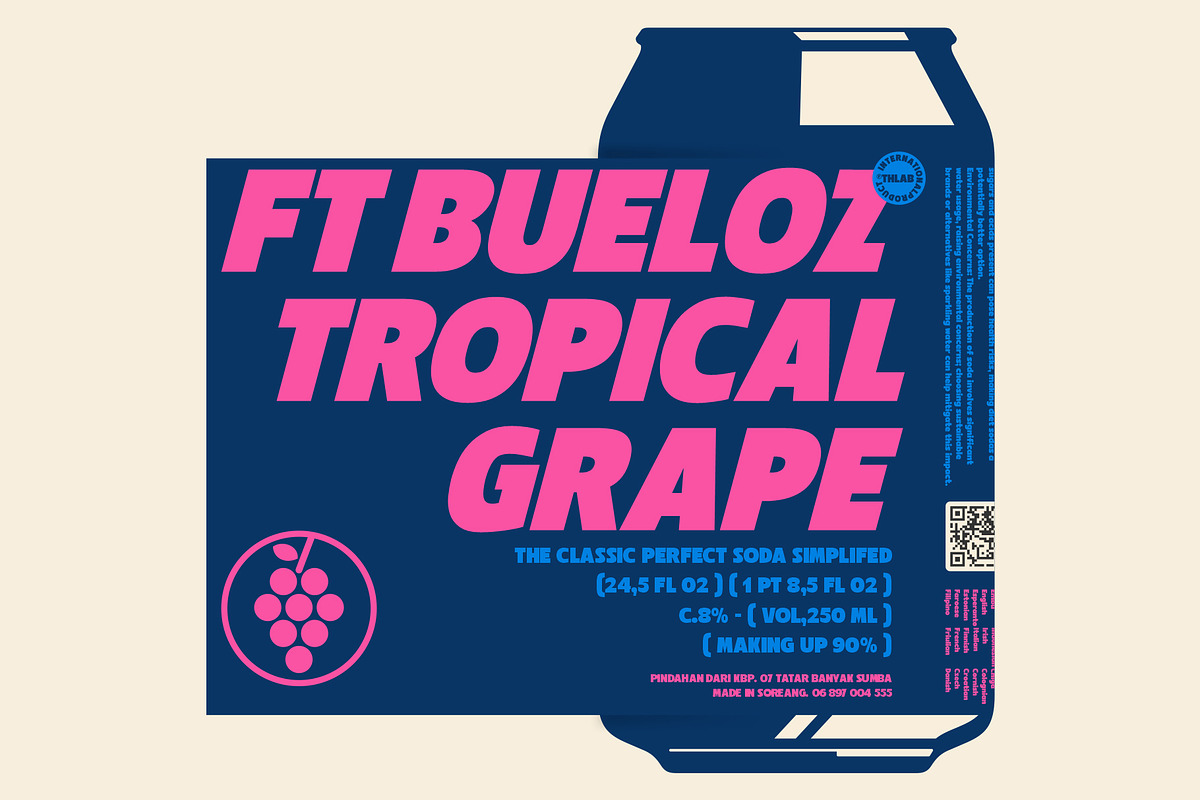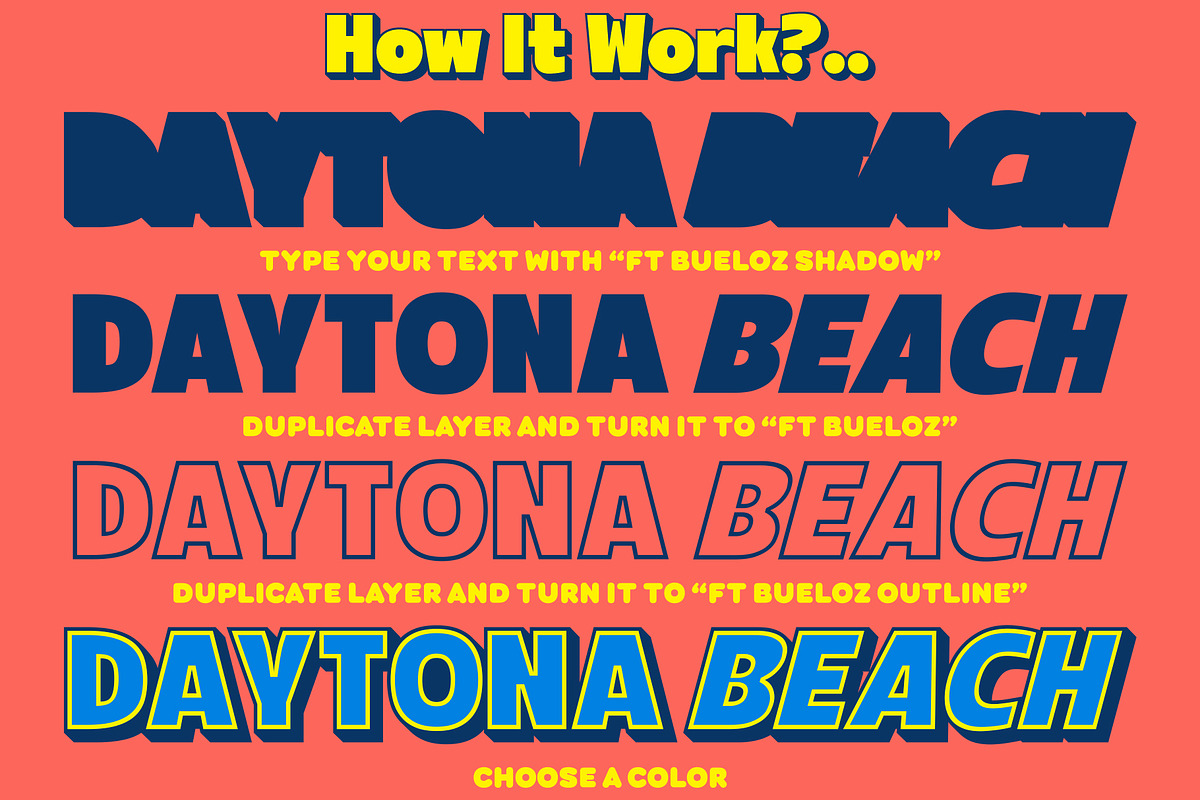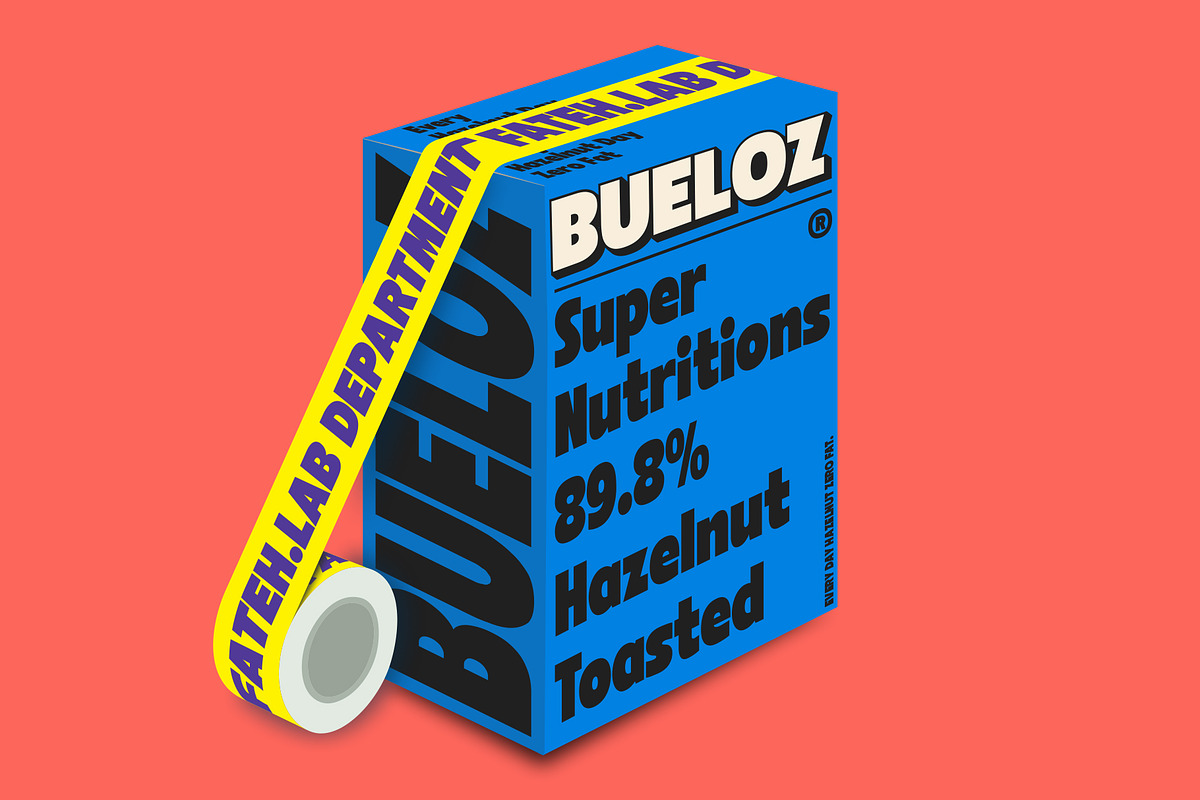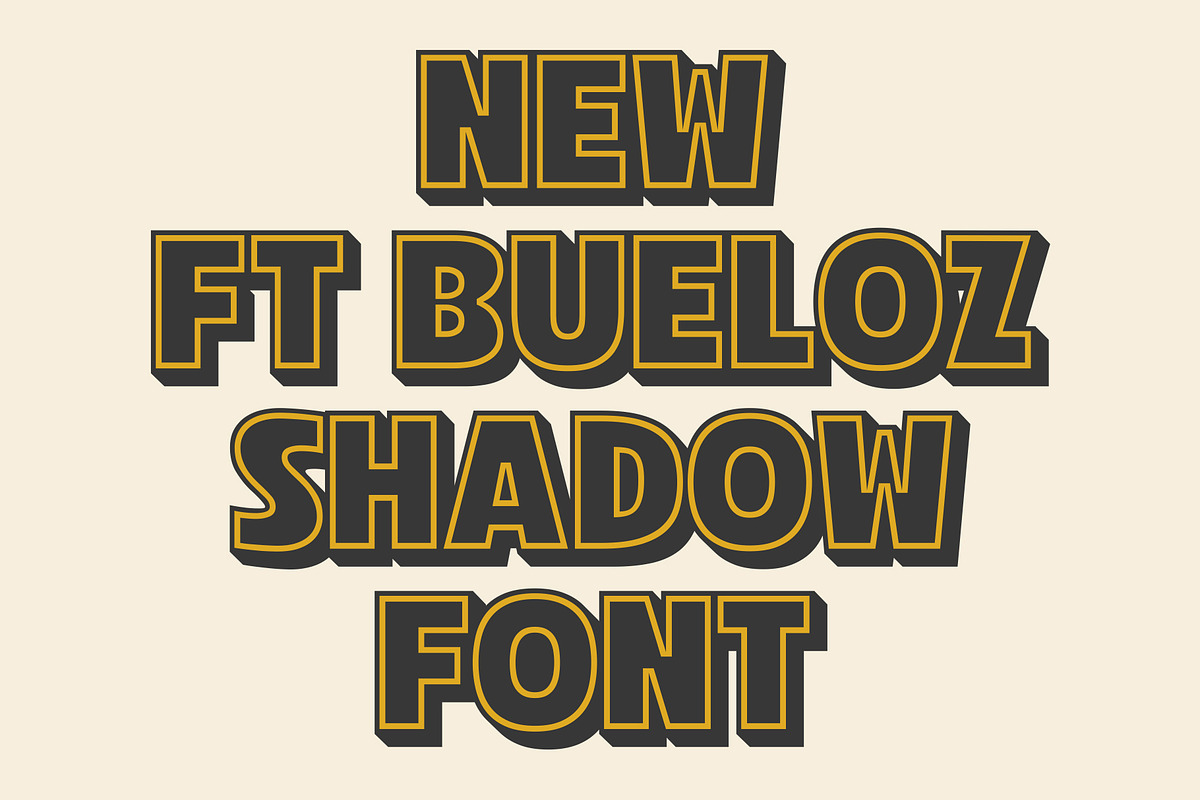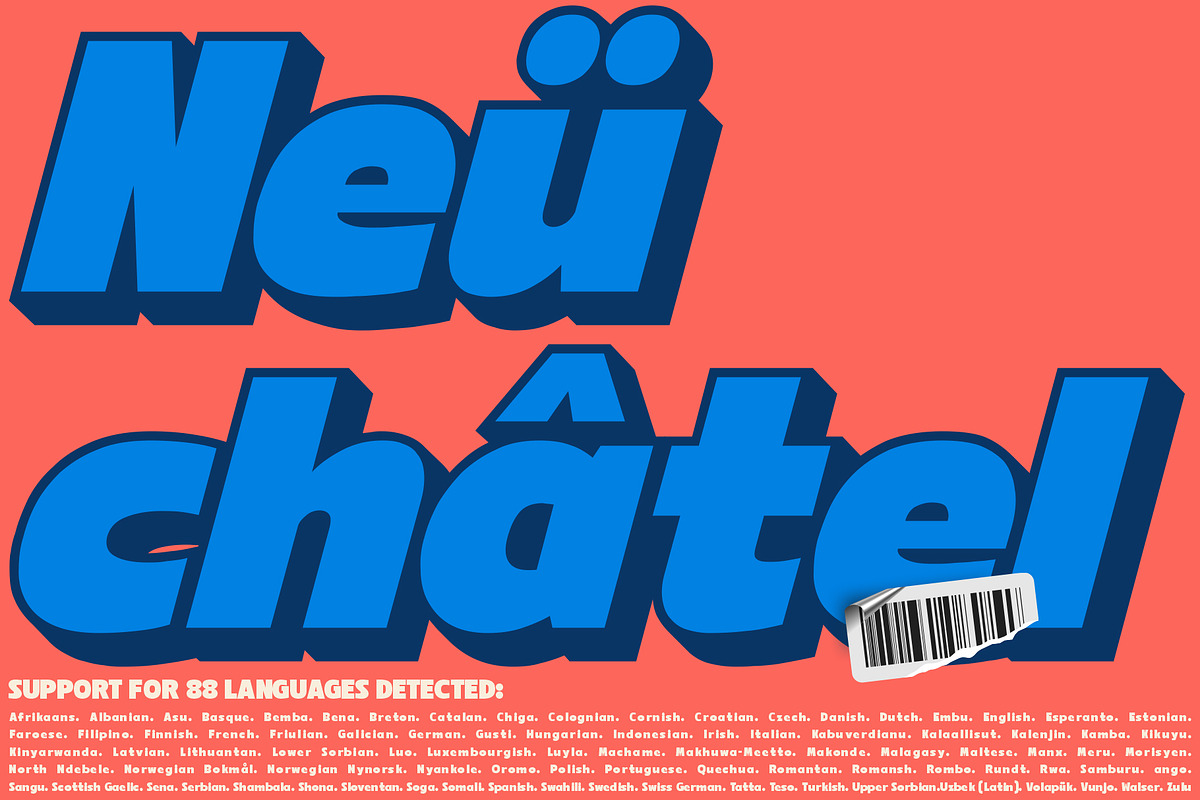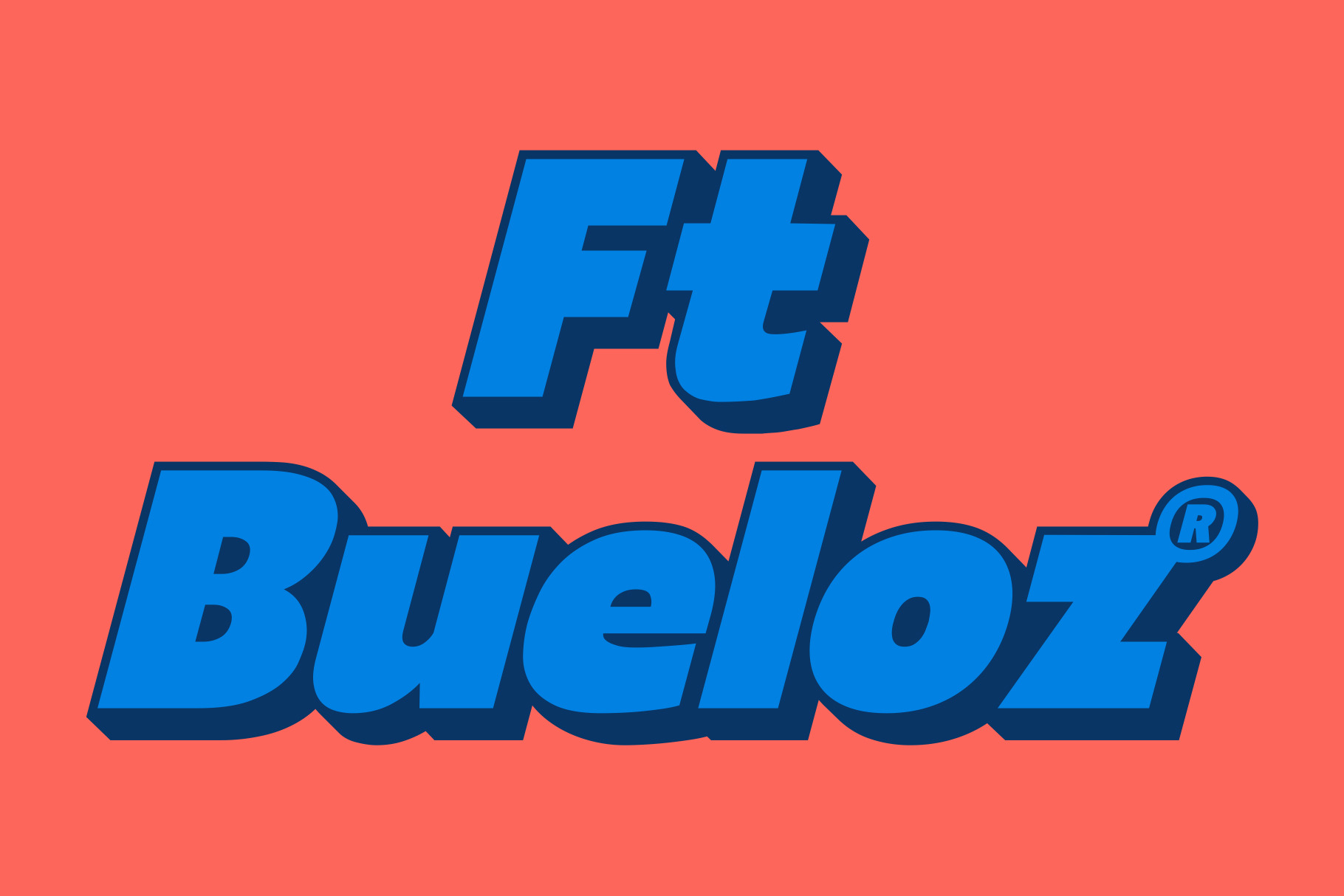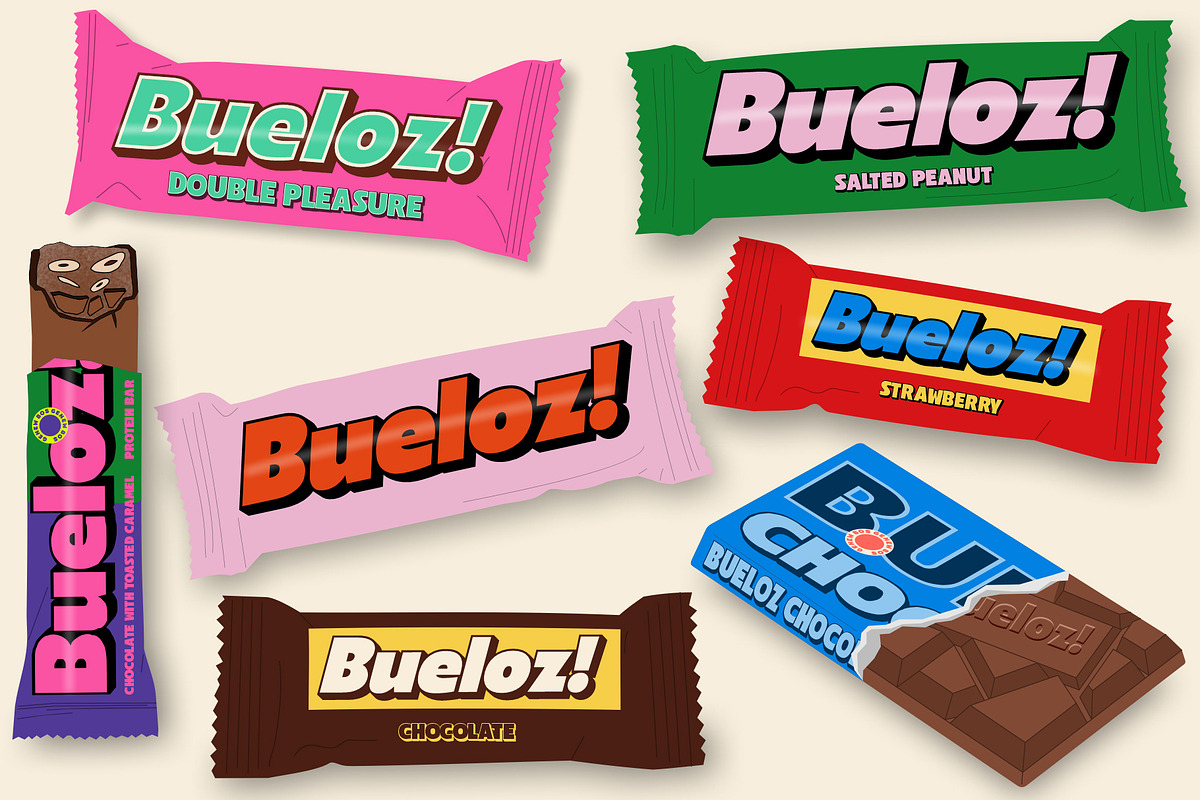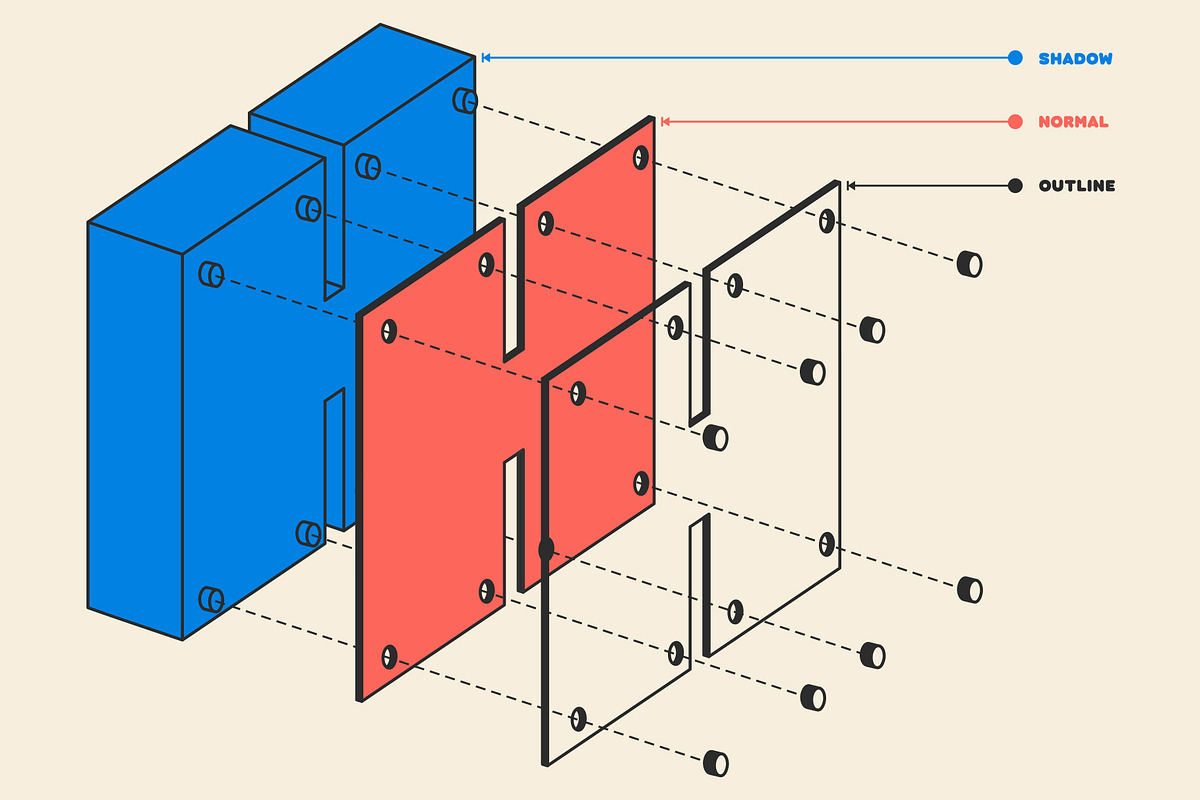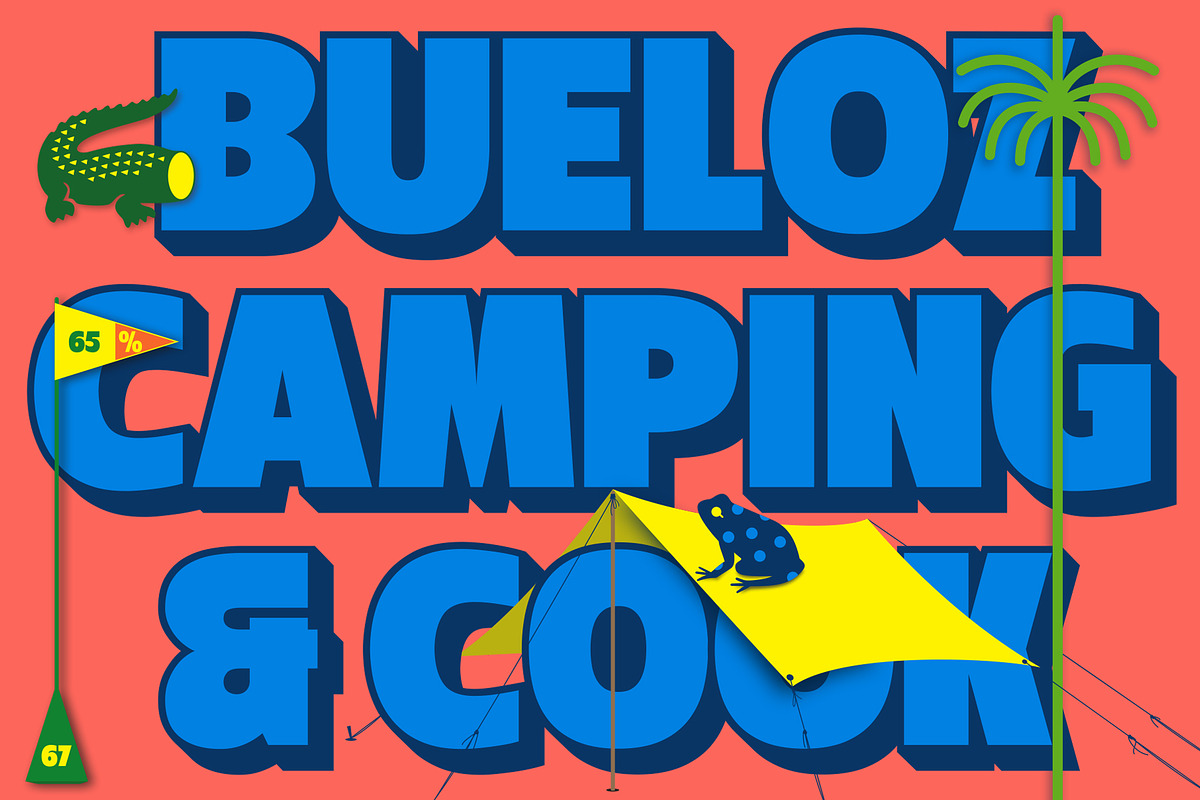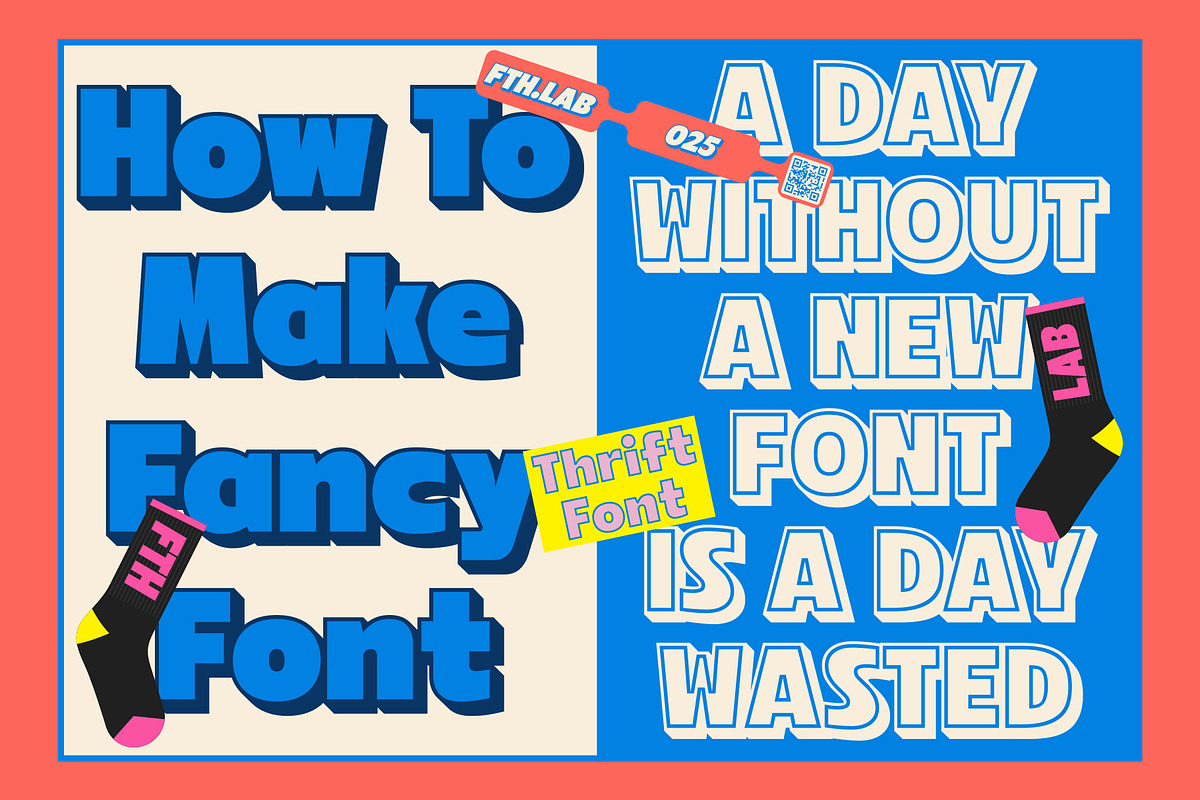
Ft Bueloz | Shadow Font
Ft. Bueloz is the latest work released by Fateh Lab! This is a shadow font, and it marks the beginning of a shift in current design trends.
With a soft yet bold typography style, Ft. Bueloz has all the elements of life in today’s design world. This is the perfect answer for those of you who are creating something great.
This font has a superior weight in posters, social media, headlines, magazine headlines, packaging, and large print formats—and anywhere else you want to see it.